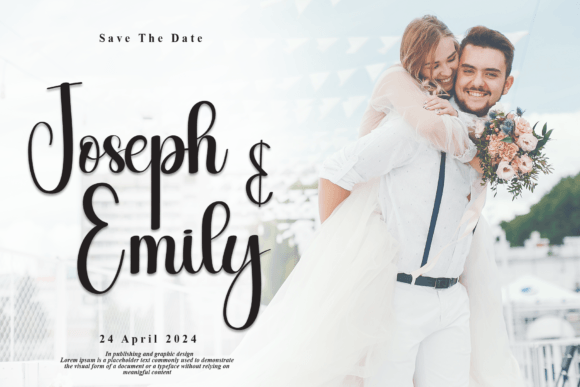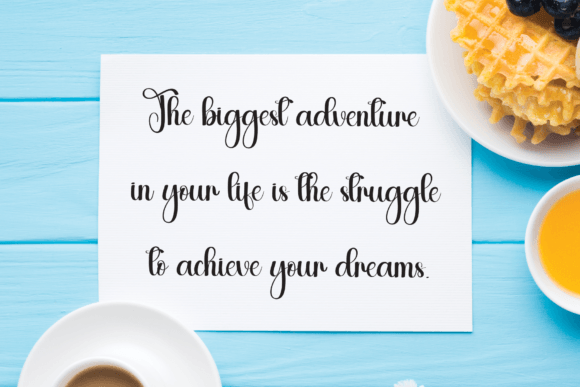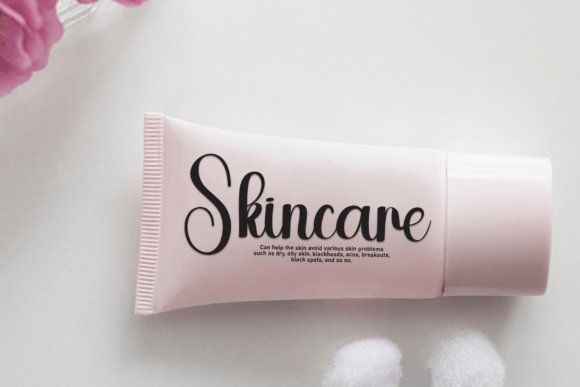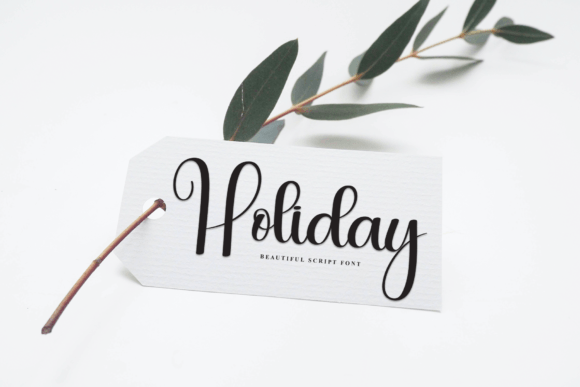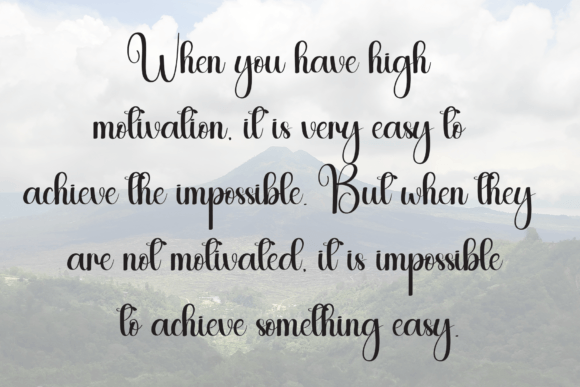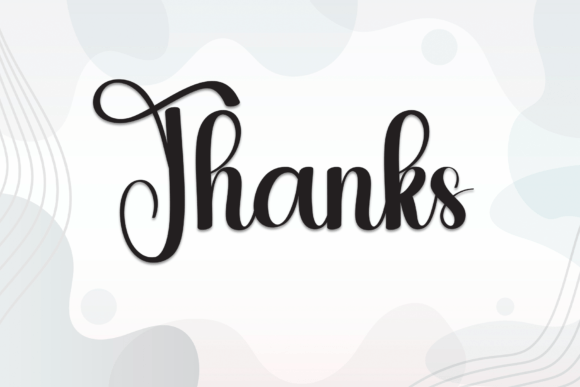
Introducing Background Font: The Perfect Blend of Playfulness and Professionalism
Are you tired of using the same old fonts in your designs? Look no further! We’re excited to introduce Background Font, a charming and lighthearted handwritten font that’s sure to bring a touch of warmth and friendliness to your creations. With its unique blend of playfulness and professionalism, this font is perfect for designers and crafters looking to add a personal touch to their work.
The Characteristics of Background Font
Background Font is a handwritten font that’s memorable for its warm and friendly character. Its sweet and positive vibe makes it perfect for designs that require a touch of whimsy and fun. The font’s playful nature is balanced perfectly with a professional edge, making it suitable for a wide range of applications, from wedding invitations and greeting cards to branding and packaging.
What Makes Background Font So Versatile?
One of the things that sets Background Font apart is its enchanting versatility. This distinctive typeface can be used in a variety of contexts, from formal to informal, and still manage to convey a sense of warmth and approachability. Whether you’re designing a heartwarming wedding invitation or a personalized greeting card, Background Font is the perfect choice.
Endless Possibilities with Background Font
The possibilities are indeed endless when it comes to using Background Font in your designs. Here are just a few ideas to get you started:
- Wedding invitations and stationery: Add a touch of romance and whimsy to your wedding designs with Background Font.
- Personalized greeting cards: Make your greeting cards stand out with a unique and playful font.
- Branding and packaging: Use Background Font to add a personal touch to your brand’s packaging and marketing materials.
- Social media graphics: Add a playful touch to your social media graphics and make them more engaging.
- Blog and website design: Use Background Font to add a unique and playful touch to your blog or website.
Why Choose Background Font?
So, why choose Background Font over other fonts? Here are just a few reasons:
- Unique and distinctive: Background Font is a one-of-a-kind font that’s sure to make your designs stand out.
- Playful and professional: This font perfectly balances playfulness with professionalism, making it suitable for a wide range of applications.
- Easy to read: Despite its playful nature, Background Font is easy to read and understand, making it perfect for body text and headlines.
- Customizable: Background Font can be customized to fit your brand’s style and personality.
In conclusion, Background Font is a charming and lighthearted handwritten font that’s perfect for designers and crafters looking to add a personal touch to their work. With its unique blend of playfulness and professionalism, this font is suitable for a wide range of applications, from wedding invitations and greeting cards to branding and packaging. So, why not give Background Font a try and see how it can bring a unique charm to your creations?
Get Ready to Fall in Love with Background Font